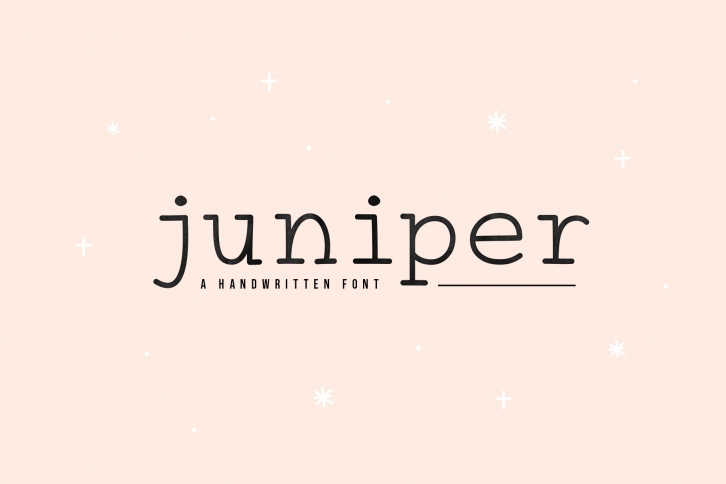
Juniper is a handwritten font with a clean, typewriter look! It has a thin, serif style making it perfect for branding and digital designs. Use this font for logos, social media, websites, blogs, instagram, business cards, branding, and more!